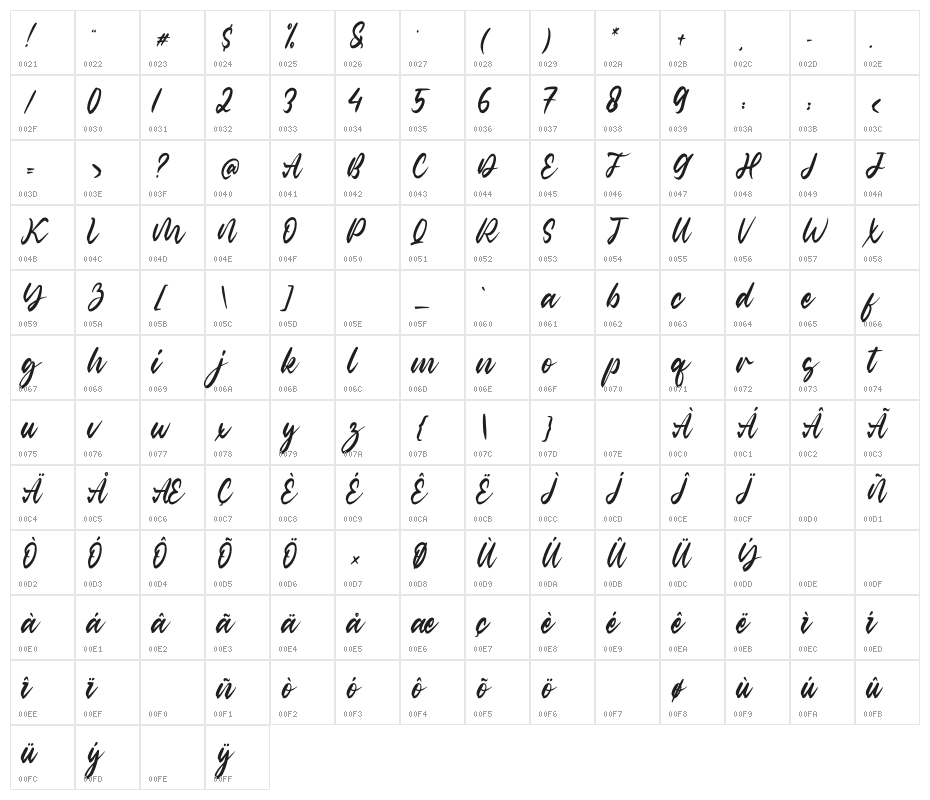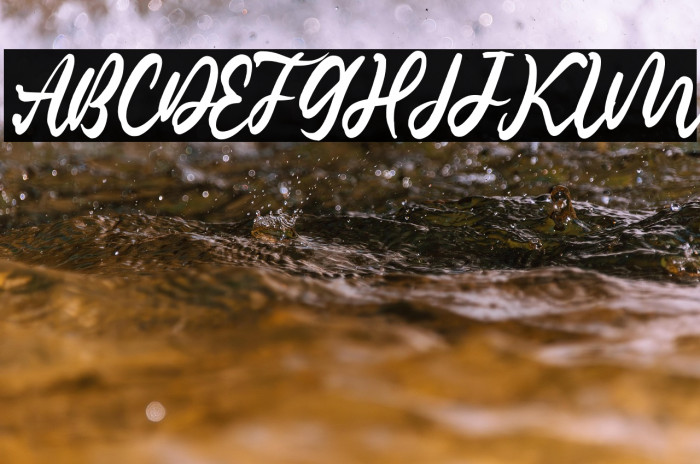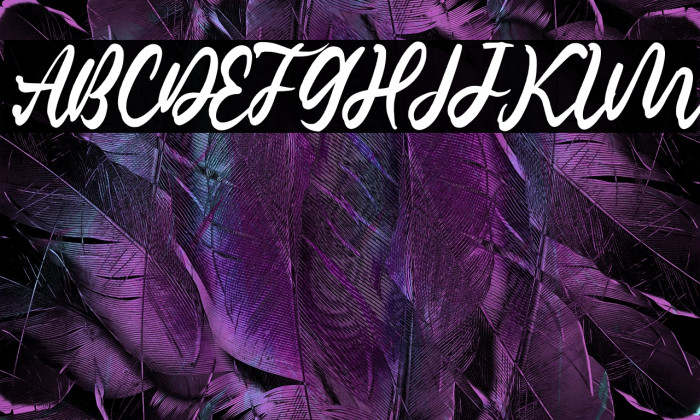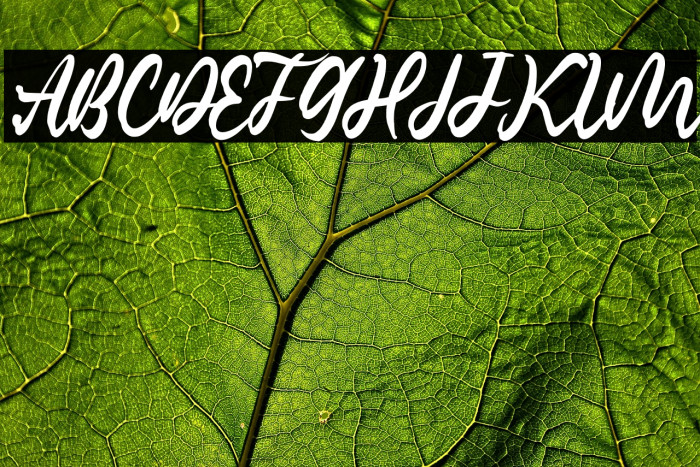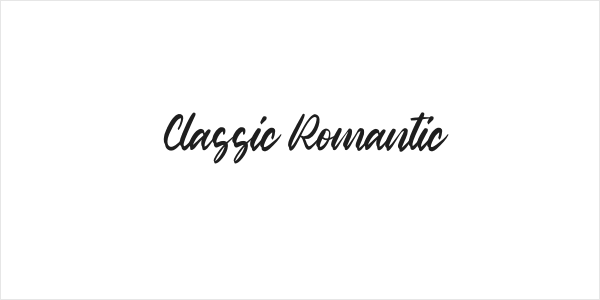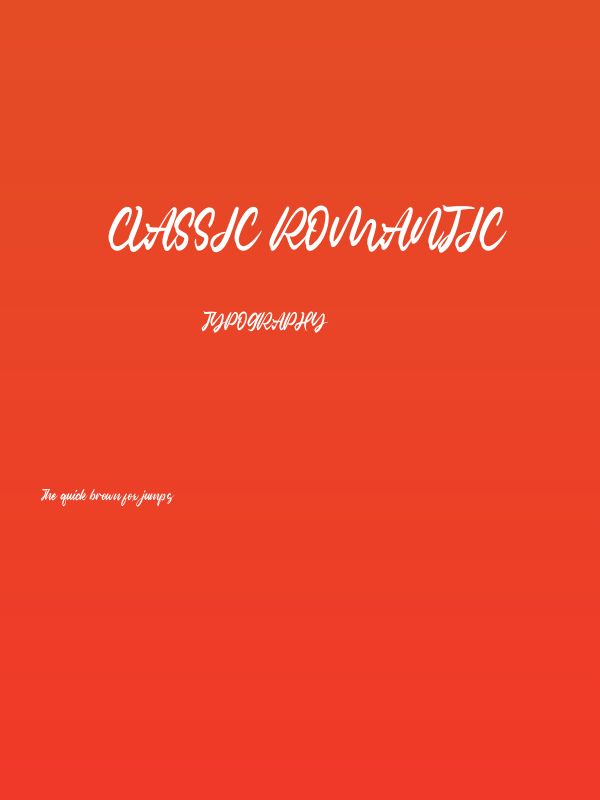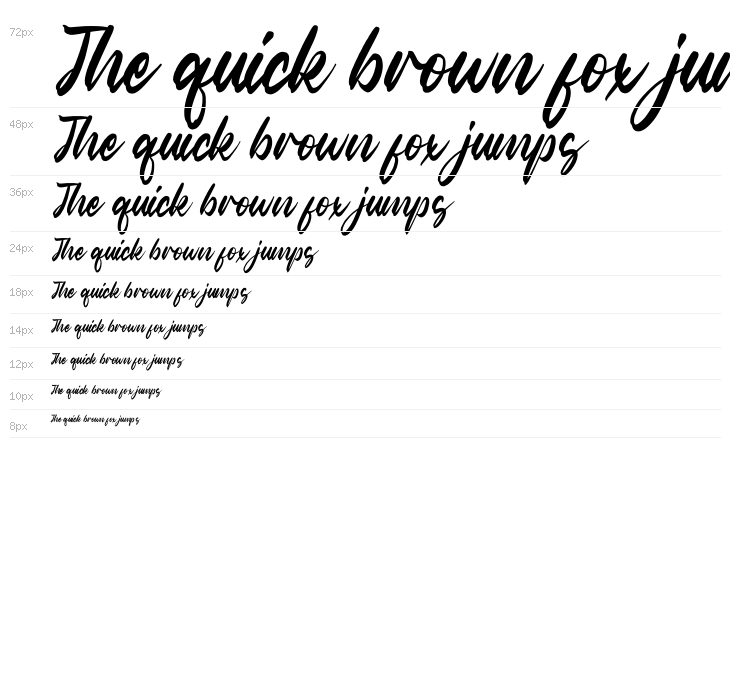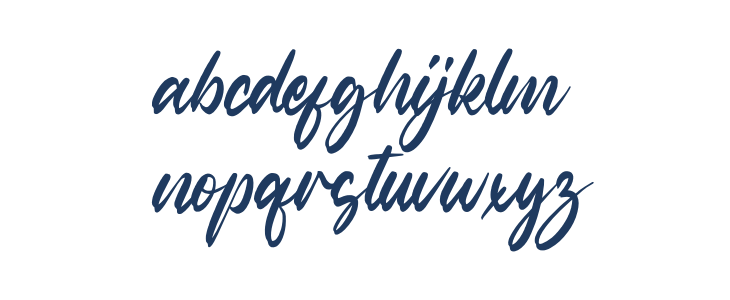
Classic Romantic Font
Classic Romantic Description
This font exudes a classic and romantic charm with its flowing, cursive style. The letters are elegantly connected, creating a sense of movement and grace. The uppercase letters are bold and prominent, while the lowercase letters maintain a consistent flow, enhancing readability. The numerals are stylishly crafted to match the overall aesthetic, and the special characters are designed with the same attention to detail. This font is perfect for projects that require a touch of elegance and sophistication.
| Proposed Projects | Ideal for wedding invitations, romantic greeting cards, elegant branding, and sophisticated packaging designs. |